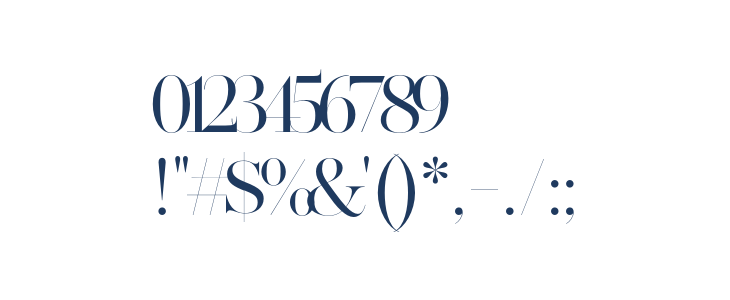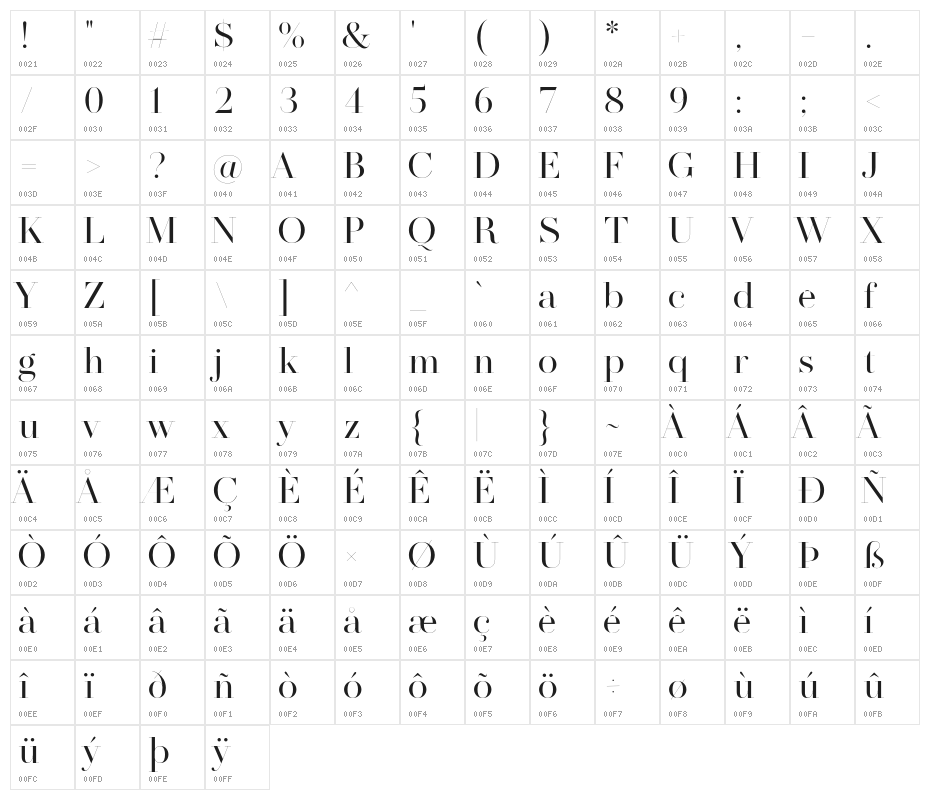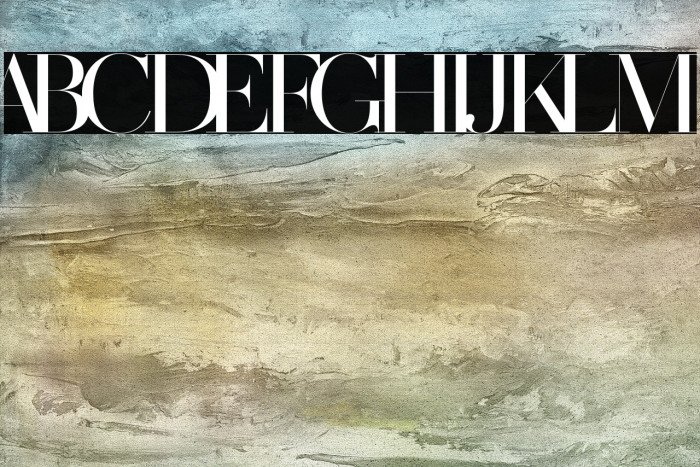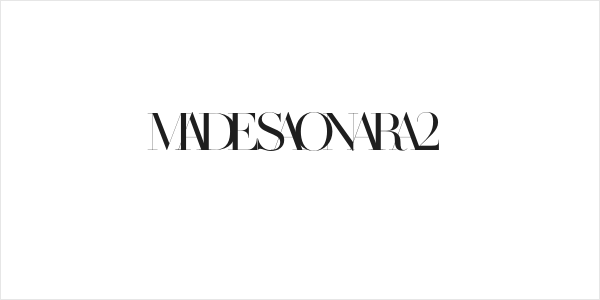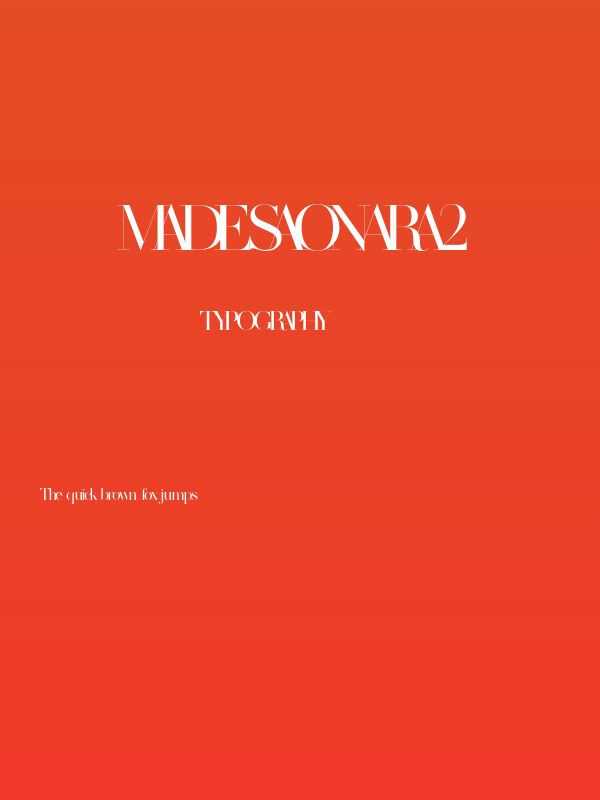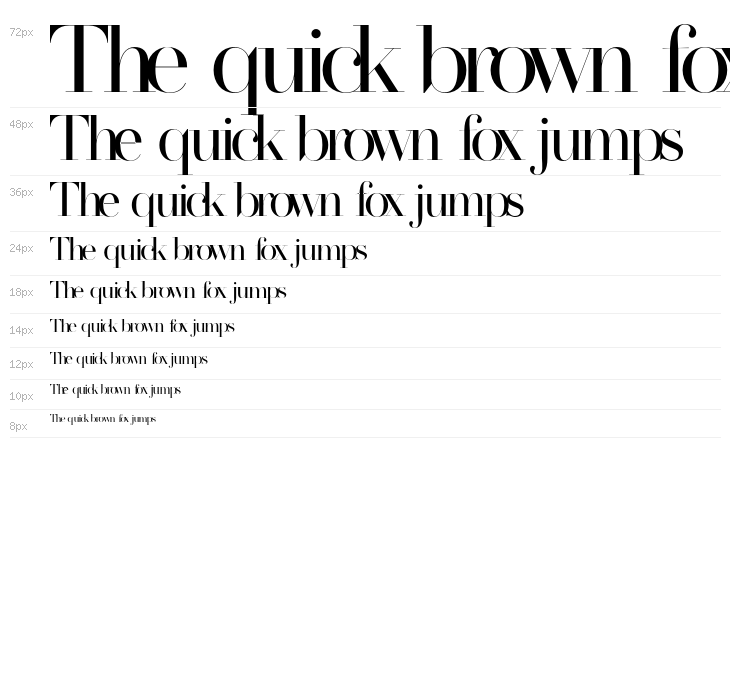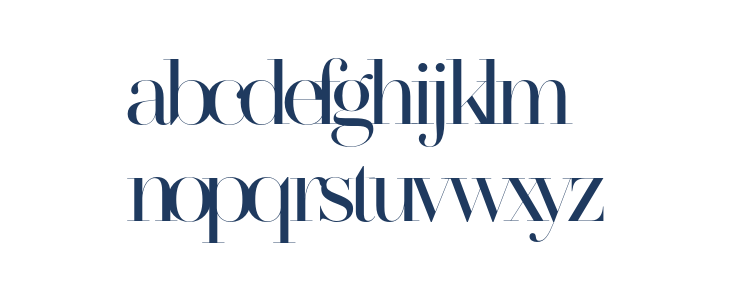
MADESAONARA2 Font
MADESAONARA2 Description
This font features a striking and elegant design with high contrast between thick and thin strokes, giving it a sophisticated and modern appearance. The uppercase letters are tall and slender, while the lowercase letters maintain a consistent style with a slightly more rounded form. The numerals are designed to match the overall aesthetic, with a sleek and stylish look. Special characters are crafted with the same attention to detail, ensuring a cohesive appearance across all glyphs. This font's unique style makes it suitable for a variety of creative applications.
| Use Case | Headlines, Logos, Editorial design |
| Proposed Projects | Ideal for luxury branding, fashion magazines, editorial design, and high-end product packaging. |